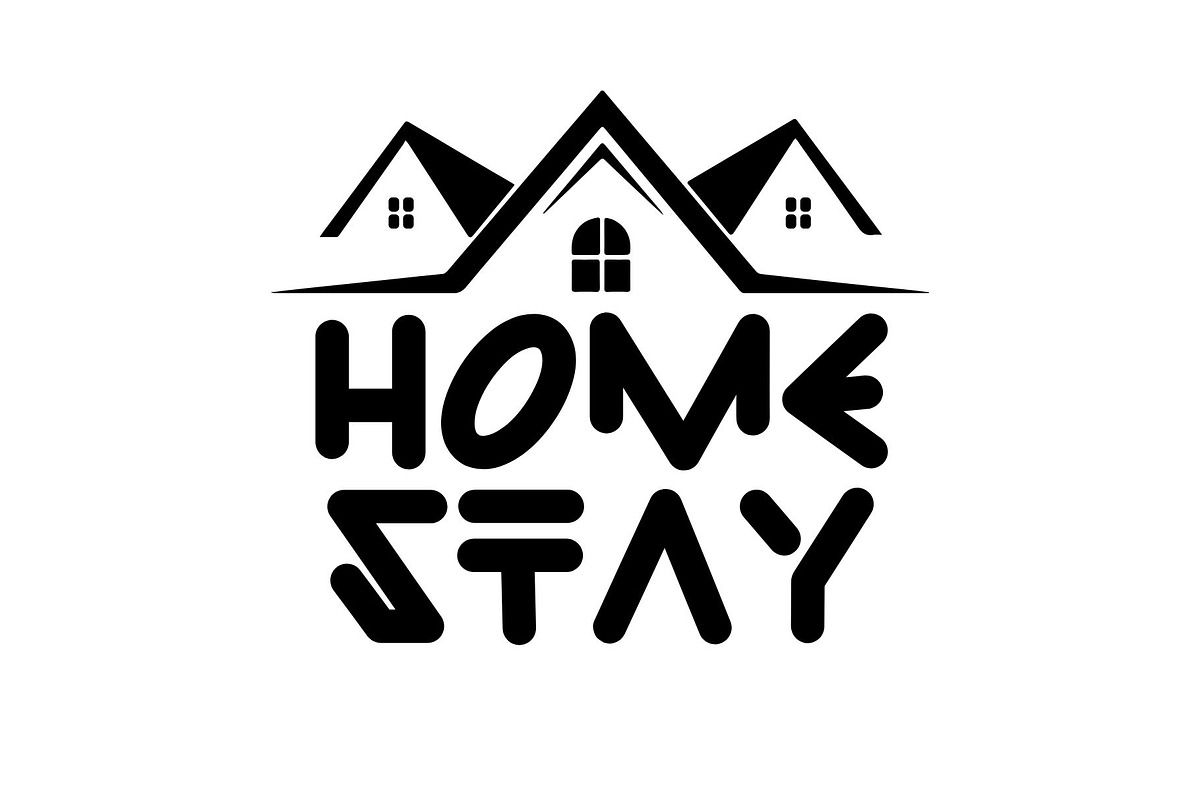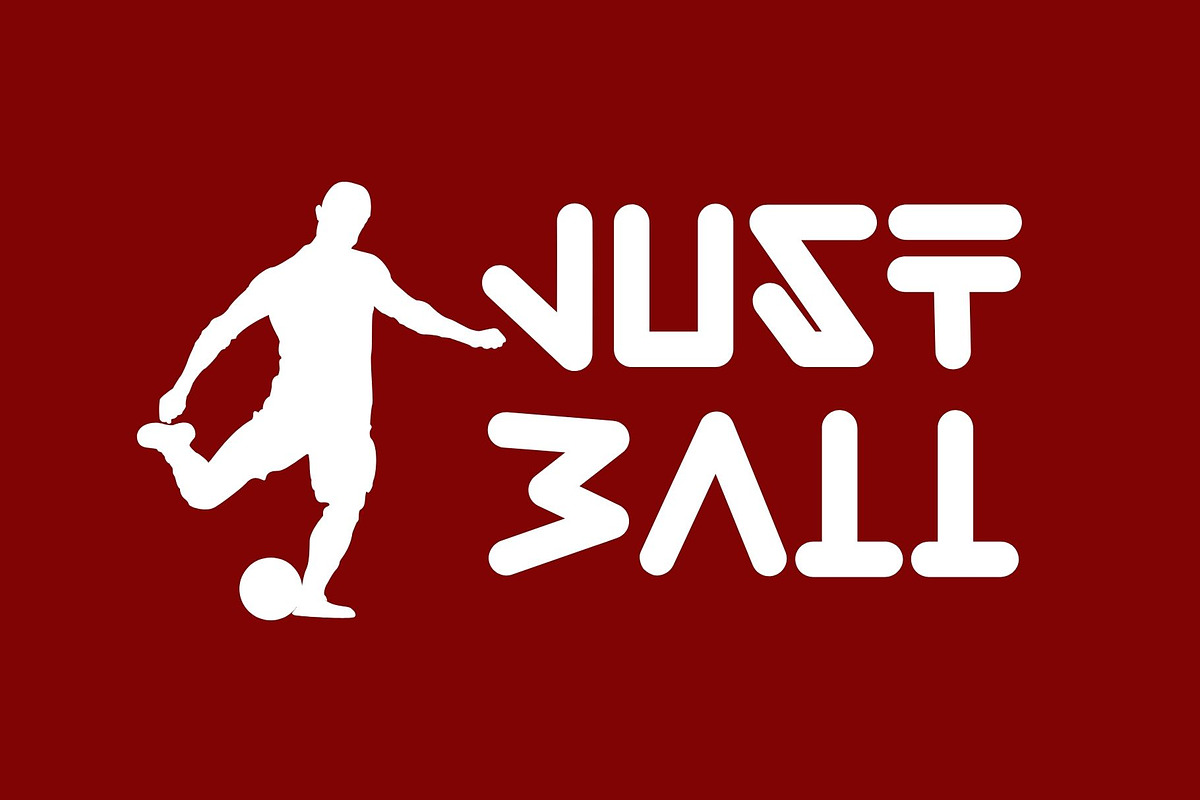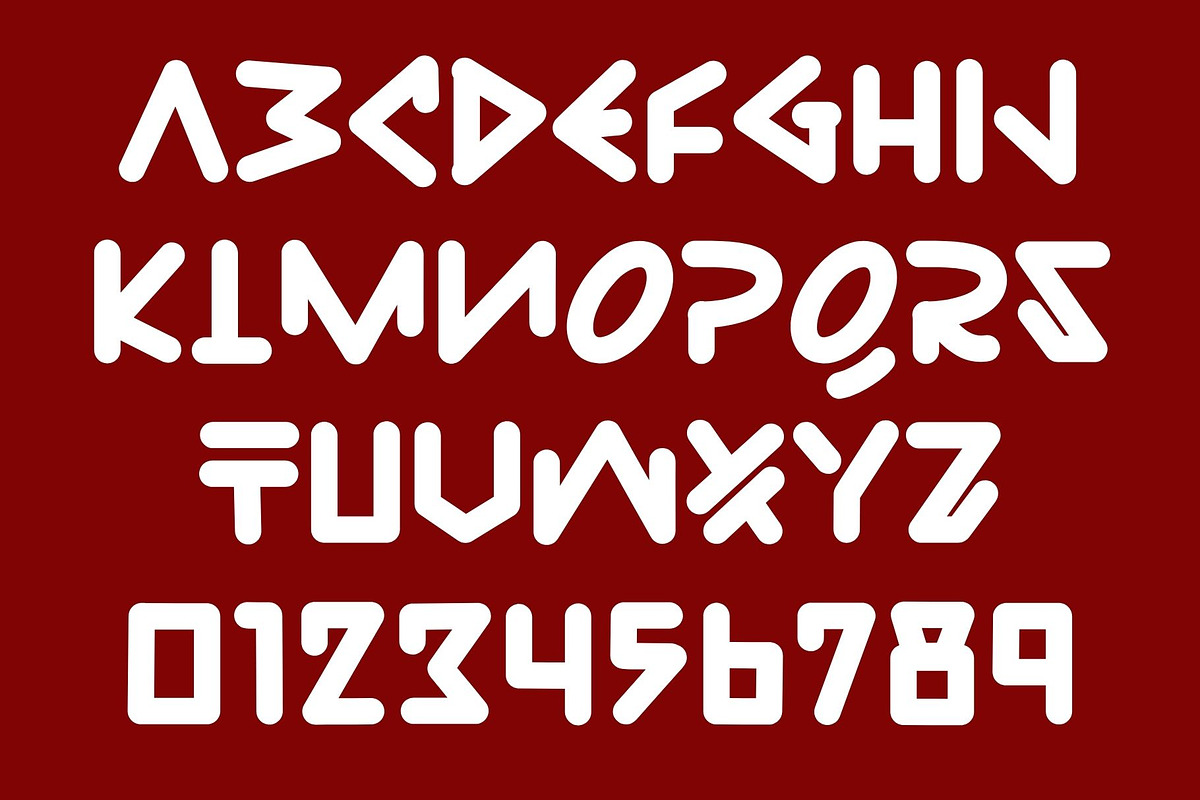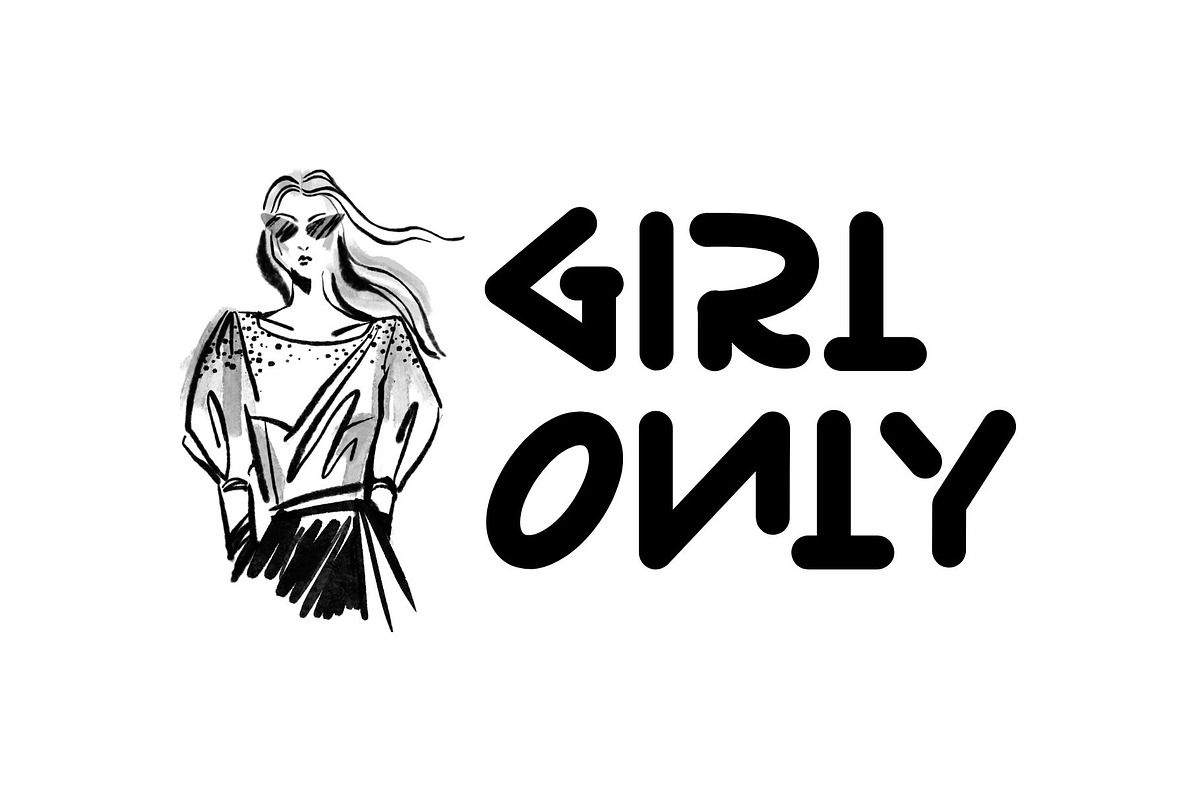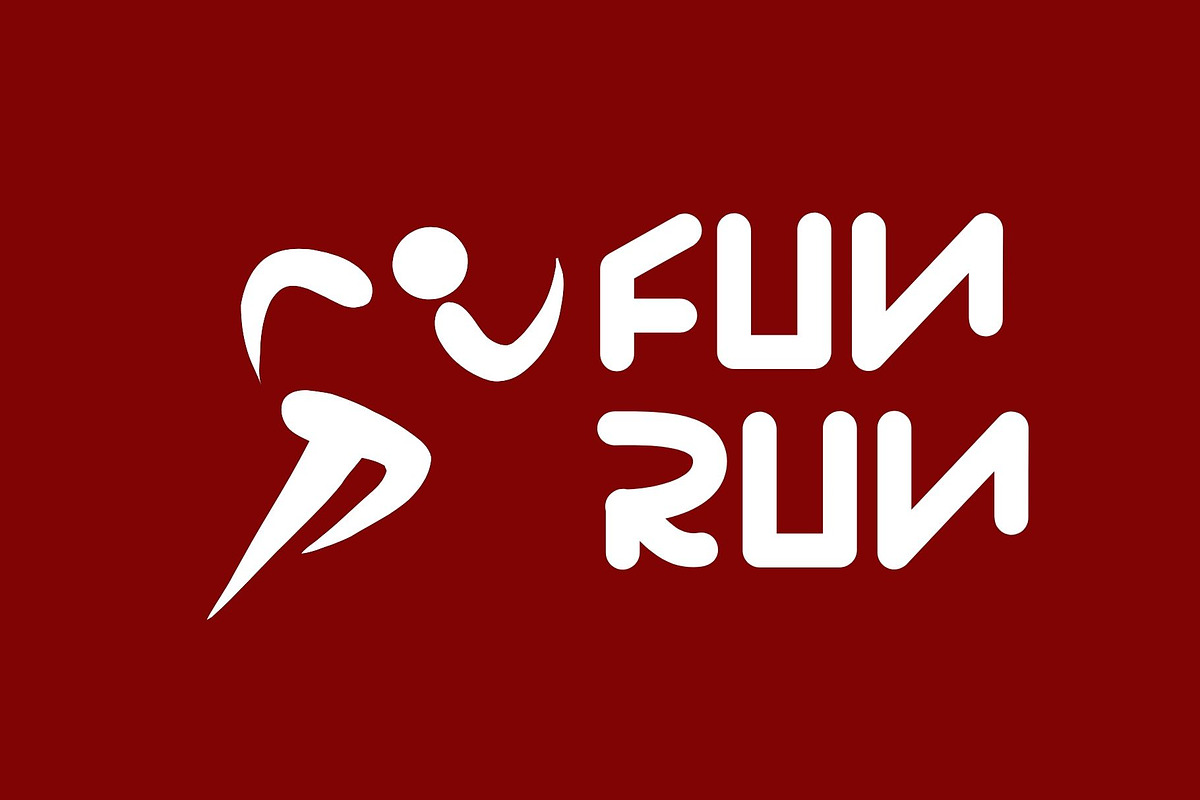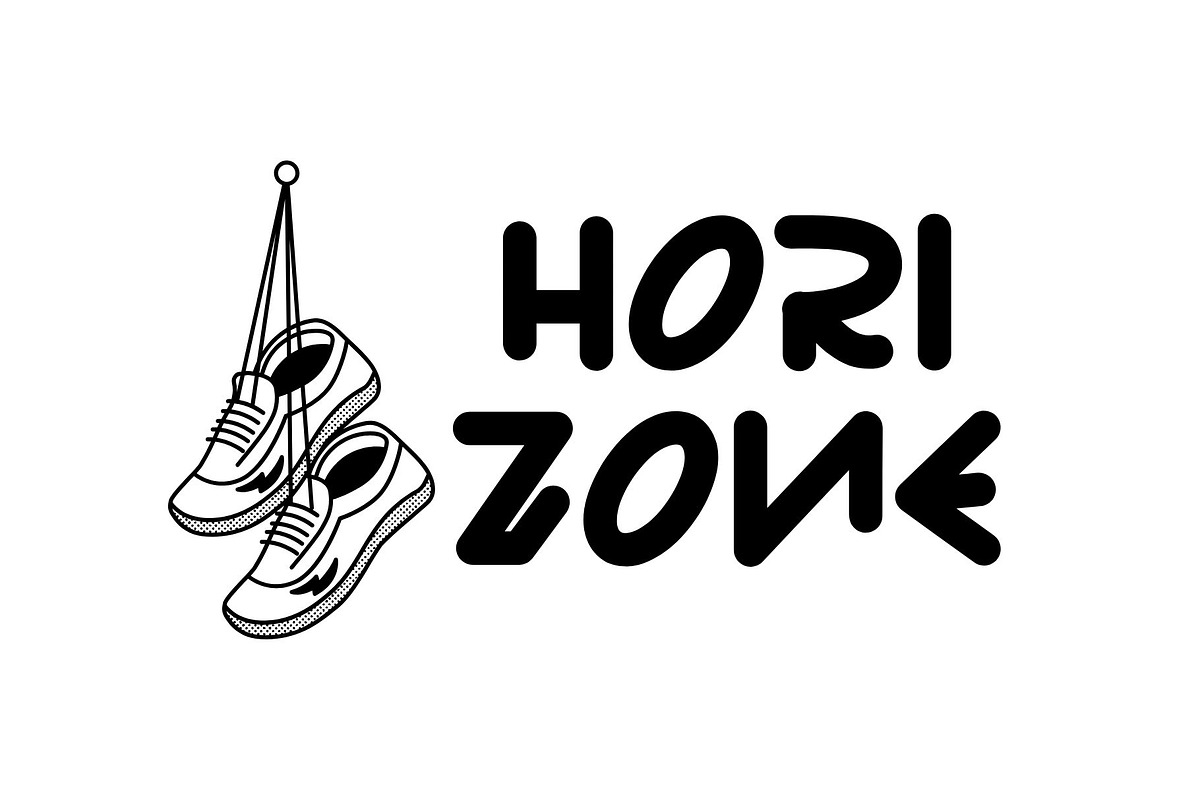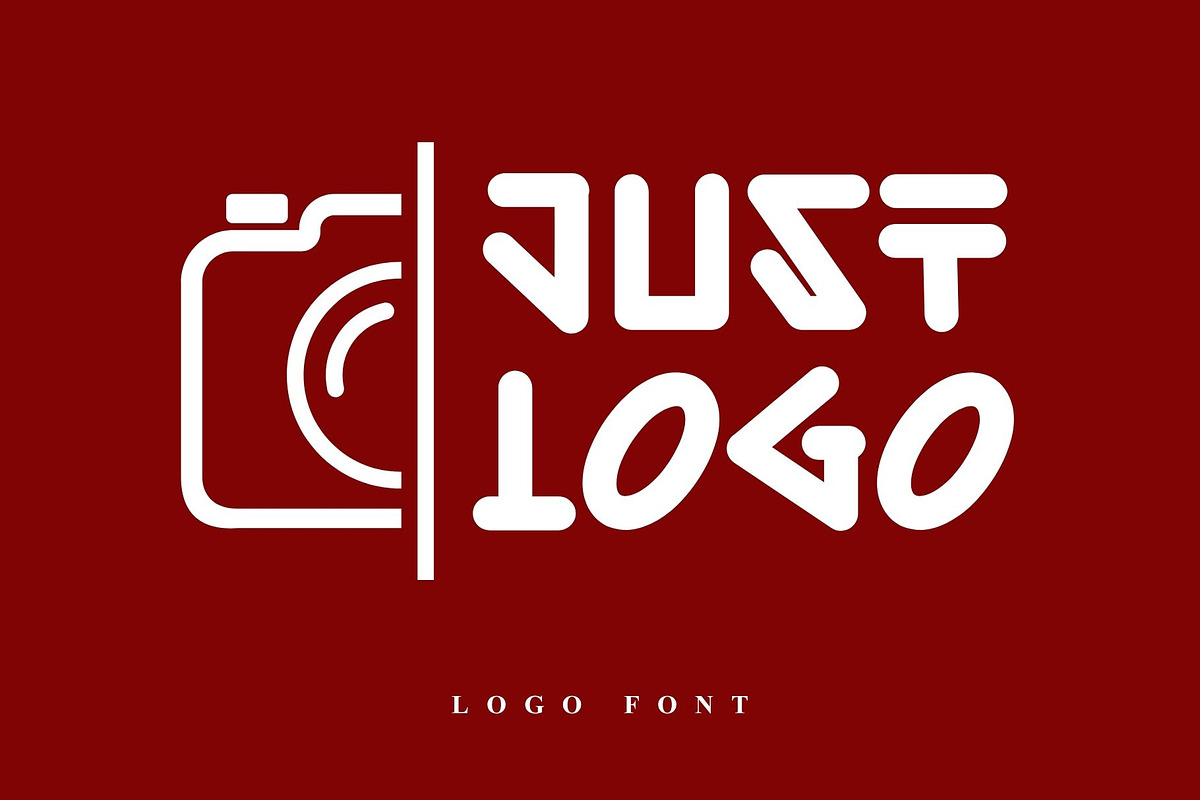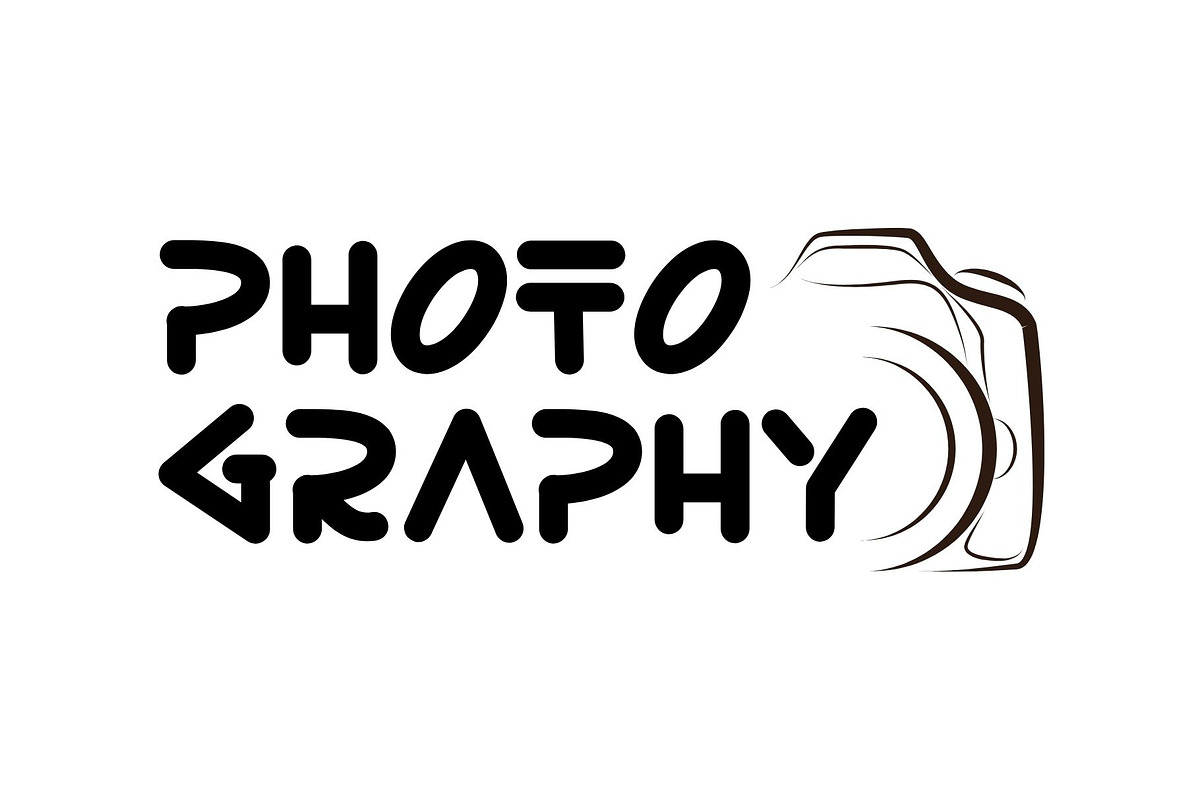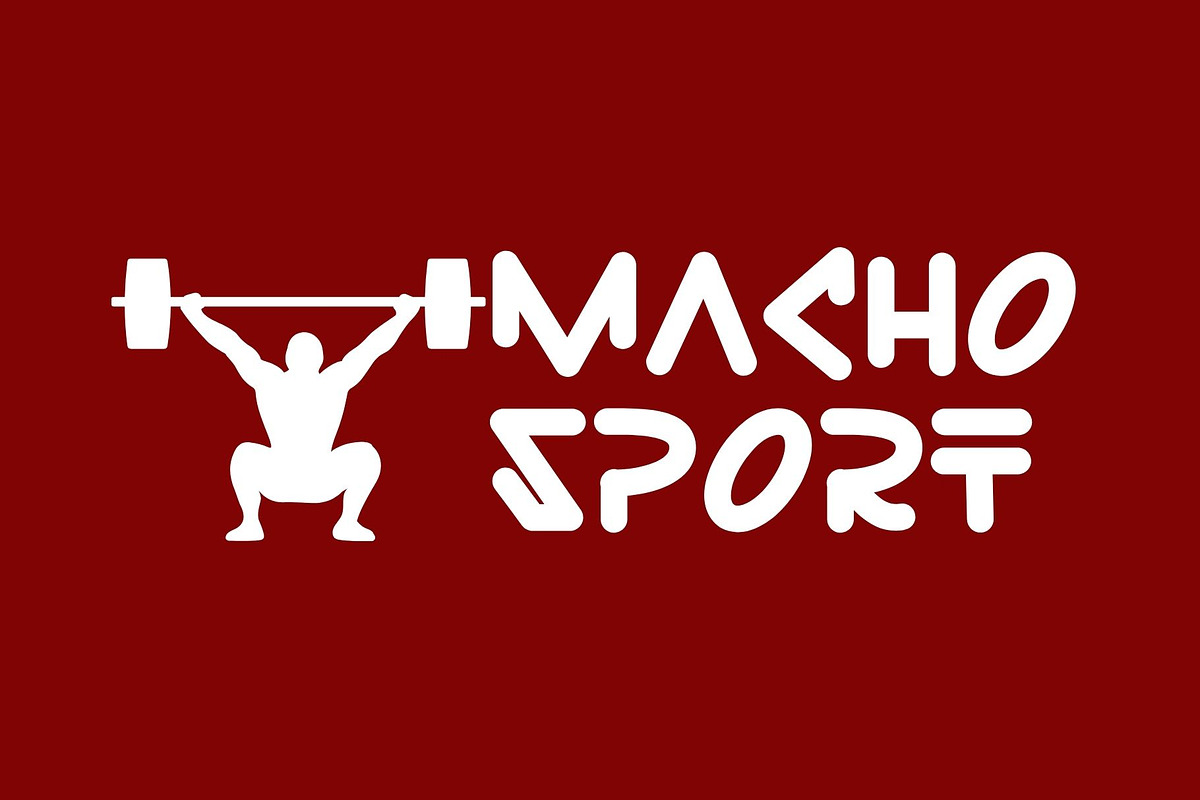
Just Logo
Just Logo is a modern futuristic style with a strong geometric minimalist approach. Each character is crafted with bold lines, smooth curves, and unique shapes, creating a visual identity that feels innovative, tech-driven, and highly creative. It is perfectly suited for logos, branding, digital content, and sci-fi or technology-themed designs.
It strikes a balance between clean structure and playful character, allowing it to be versatile across platforms such as YouTube, startup branding, and merchandise.